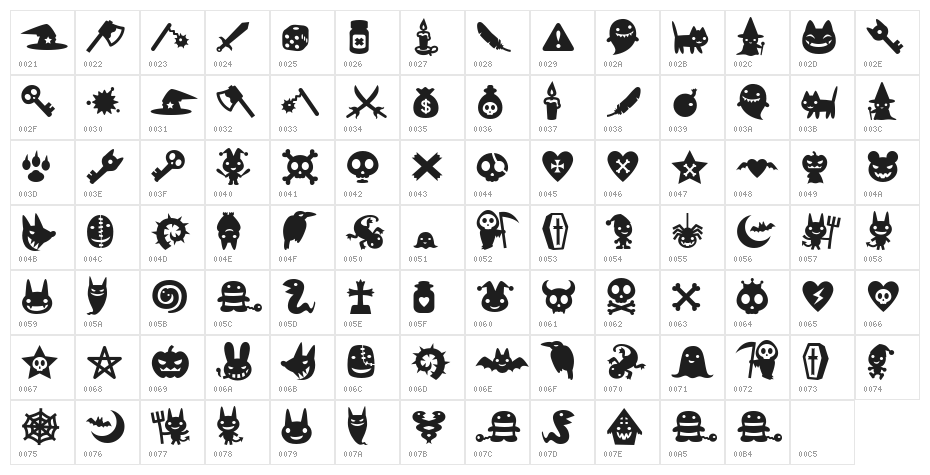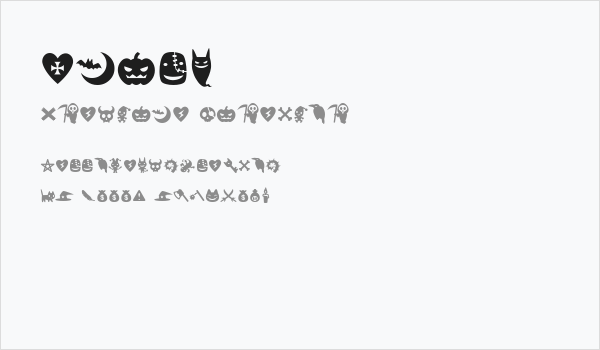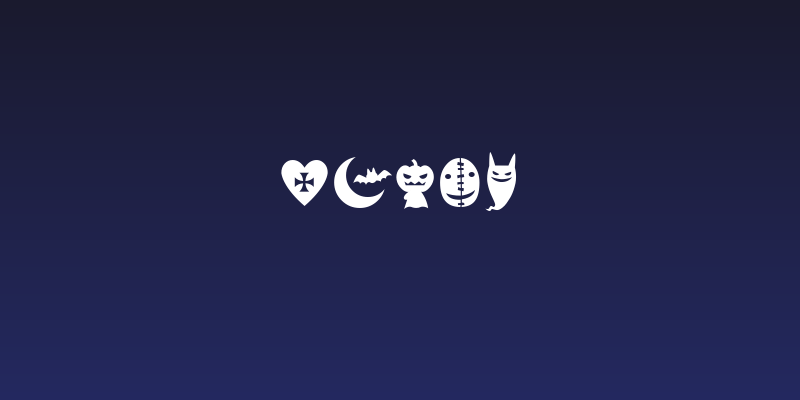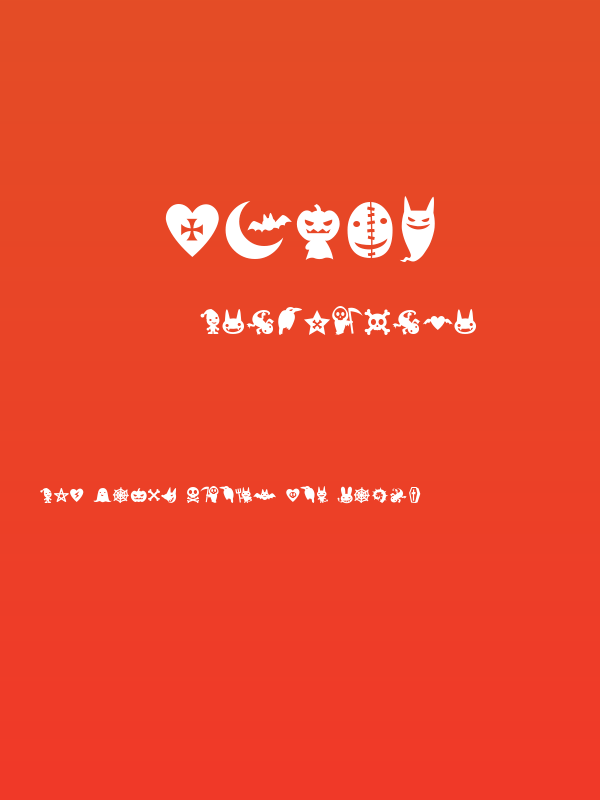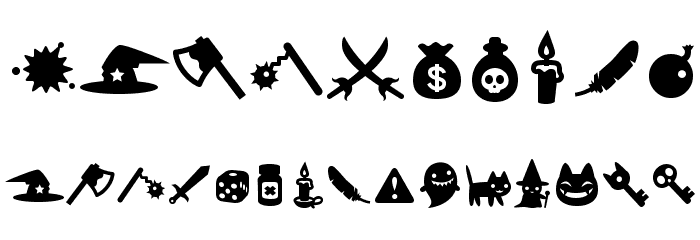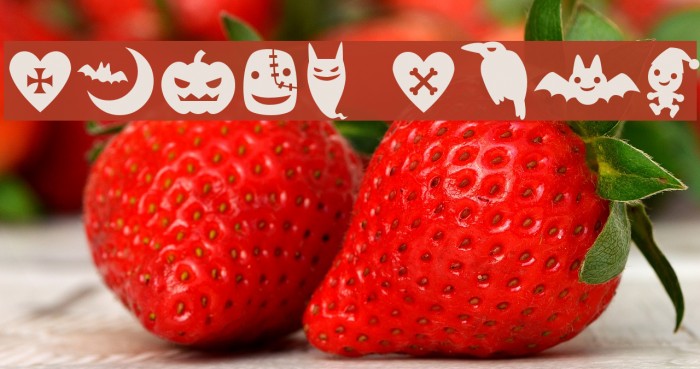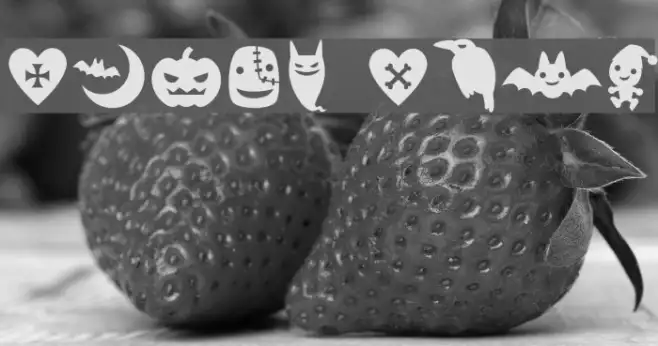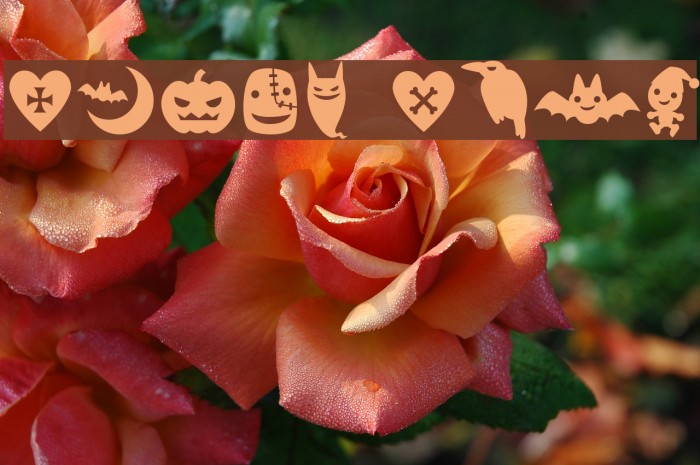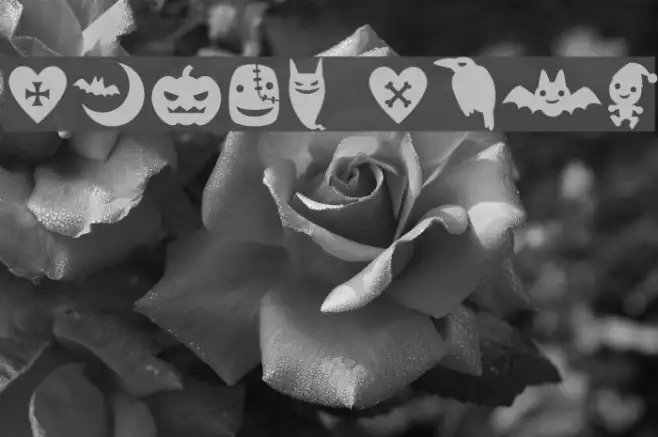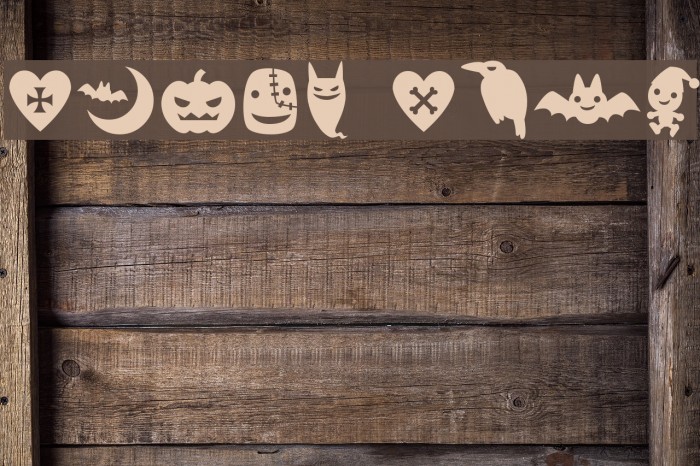
Evilz Font
Evilz Description
This collection features a series of playful and spooky icons, perfect for Halloween-themed projects. The icons include a variety of symbols such as skulls, bats, ghosts, and other eerie elements, each rendered in a bold, black silhouette style. The designs are whimsical yet maintain a slightly sinister edge, making them ideal for both fun and creepy contexts. The consistent use of thick lines and solid fills gives the icons a cohesive look, while the diverse range of shapes and characters ensures versatility in use. These icons can add a touch of Halloween spirit to any design, from party invitations to themed websites.
| Use Case | Logos, Decorative elements |
| Proposed Projects | Ideal for Halloween party invitations, themed websites, seasonal marketing materials, and festive decorations. |